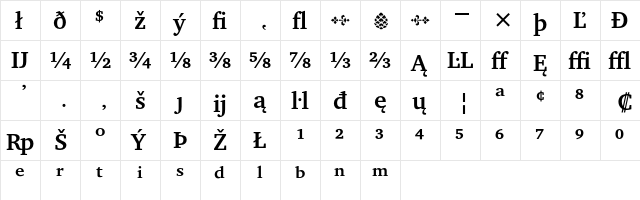
ITC Charter Bold Extension
Design Context for ITC Charter Typeface
ITC Charter is a composed and adaptable typeface that performs quietly and consistently across a wide range of design contexts. The heavy weight commands attention and anchors typographic hierarchies.
Pro Tip: Pair ITC Charter with a font of contrasting weight or personality to build a more expressive typographic hierarchy.